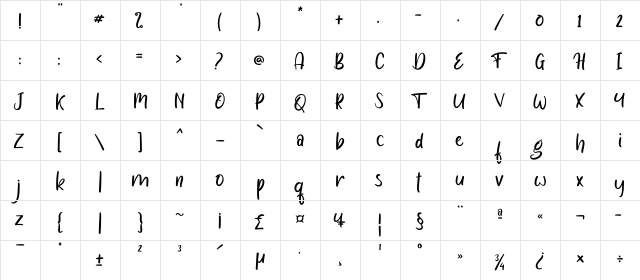
Big Bang! Regular
| Designer | Sarwo Edhi Prayitno |
Design Context for Big Bang! Typeface
Big Bang! is a composed and adaptable typeface that performs quietly and consistently across a wide range of design contexts.